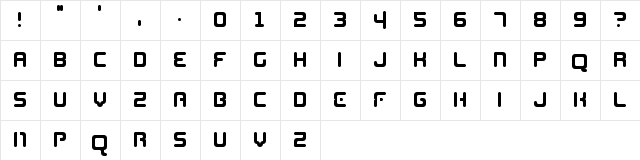
FutureMan Regular
| Designer | Chris Burgess |
Design Context for FutureMan Typeface
FutureMan has a distinctly futuristic character, with geometric precision and clean angles that feel at home in technology, gaming, and sci-fi contexts.
Pro Tip: Try FutureMan with generous letter-spacing in UI labels and navigation — the geometric forms benefit from room to breathe.